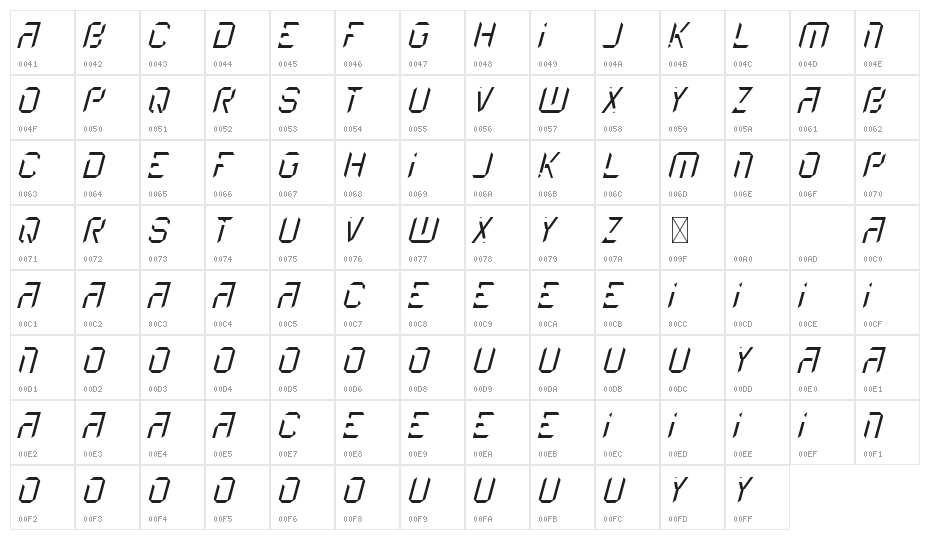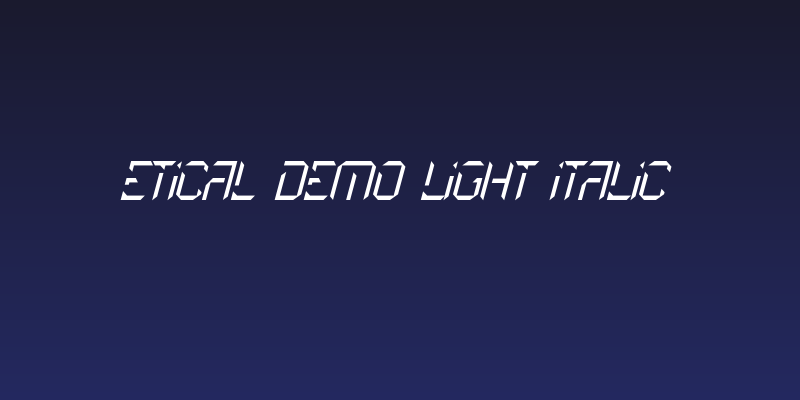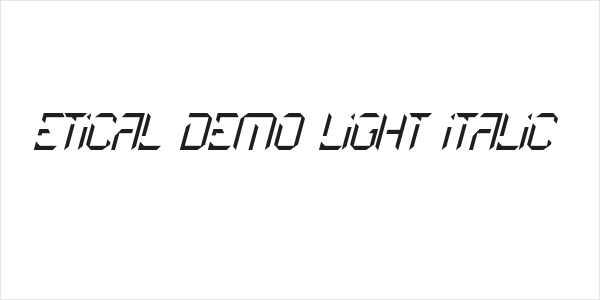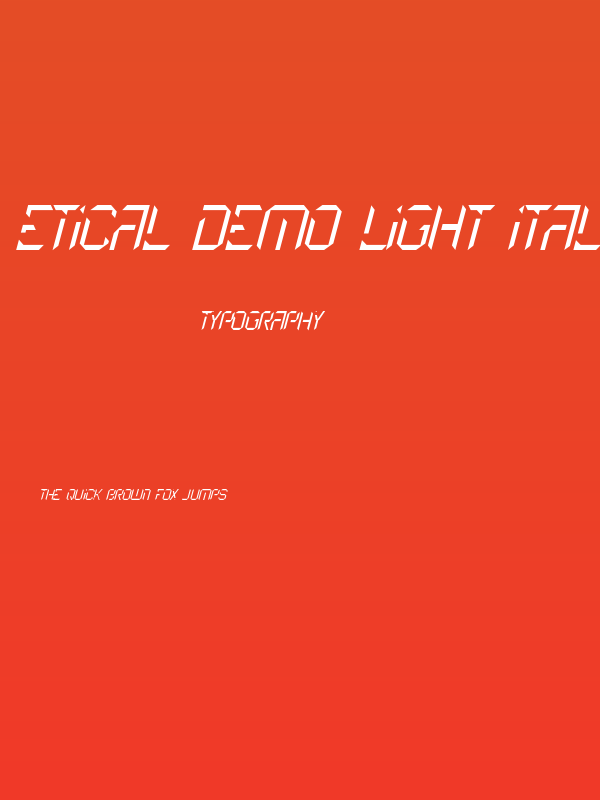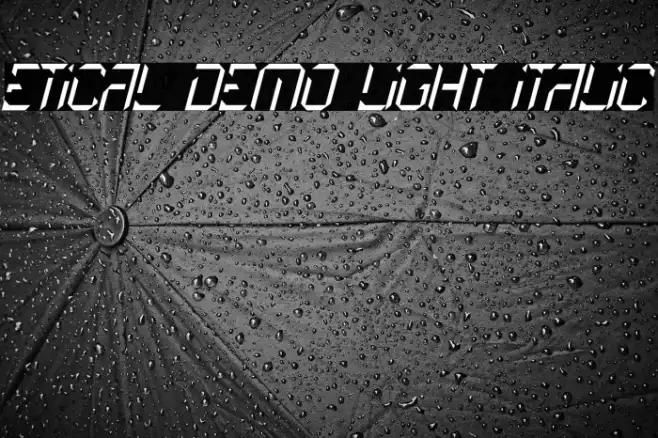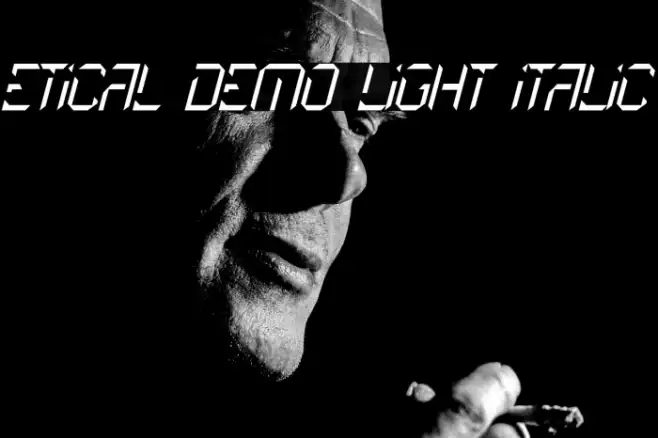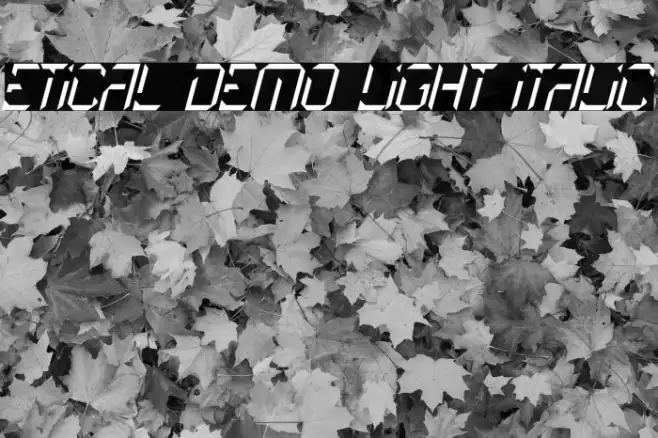
Etical Demo Light Italic Font
Etical Demo Light Italic Description
This font features a futuristic and angular design, characterized by sharp, geometric lines and a distinct italic slant. The letters are constructed with a series of straight edges and acute angles, giving them a dynamic and edgy appearance. The overall look is sleek and modern, with a sense of motion and energy. The font's unique style makes it stand out, suitable for projects that require a bold and unconventional aesthetic. It maintains a consistent line thickness throughout, contributing to its cohesive and uniform look.
| Proposed Projects | Ideal for sci-fi themed designs, technology branding, video game titles, and modern digital interfaces. |